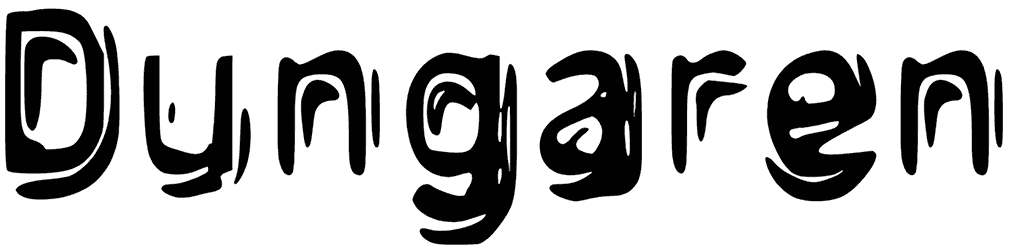
d Dungaren Font
Don’t even think about ignoring an eye-grabbing destroy font such as d Dungaren that is capable of reinforcing a feeling of drama, eerie, and mystery in any kind of graphic content including social media posters, logos, branding, or editorial projects. The number of glamorous eroded fonts the same as this one in our archive would exceed your expectations, so don’t hesitate to visit our library.